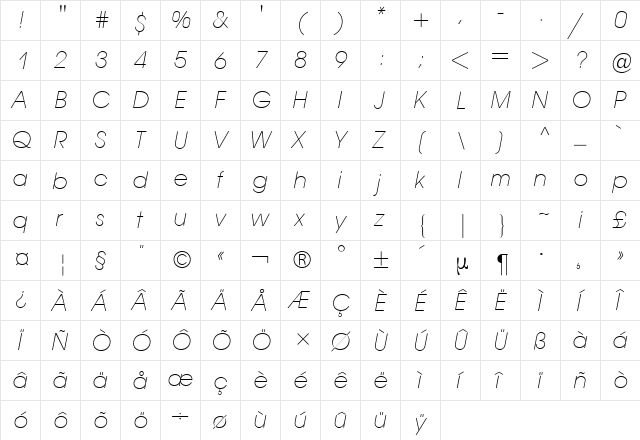
Avant Garde BQ Roman Italic Font Preview
Avant Garde BQ Roman Italic
Avant Garde BQ Roman Italic Font Details
Design Context for Avant Garde BQ Typeface
Avant Garde BQ offers clean, dependable letterforms without strong stylistic allegiance, making it a practical choice for designers who need flexibility. The slanted form adds forward momentum and visual energy.
Pro Tip: Try Avant Garde BQ for annotation and caption copy alongside an upright companion — the contrast in angle creates a dynamic but ordered typographic system.